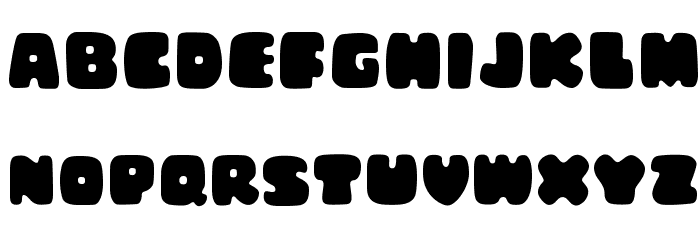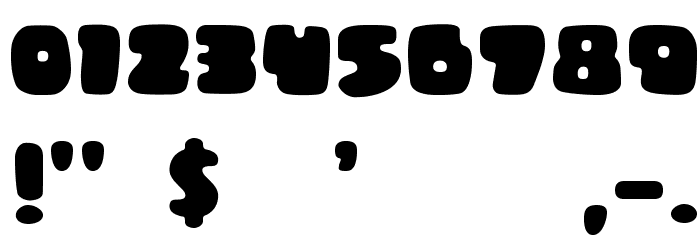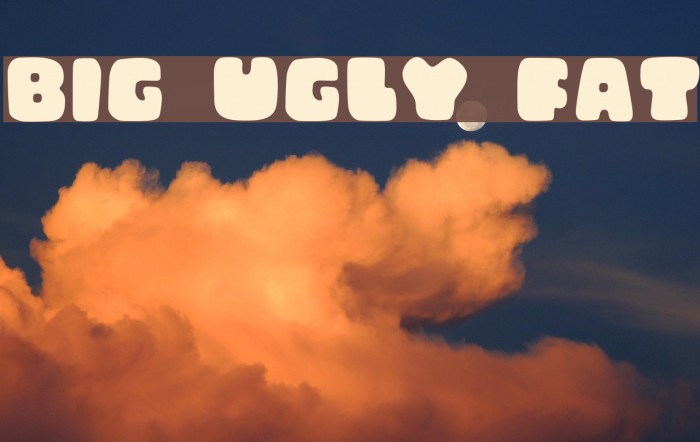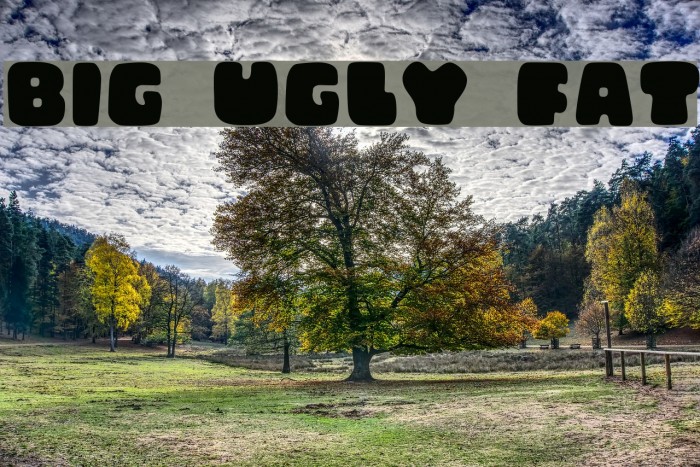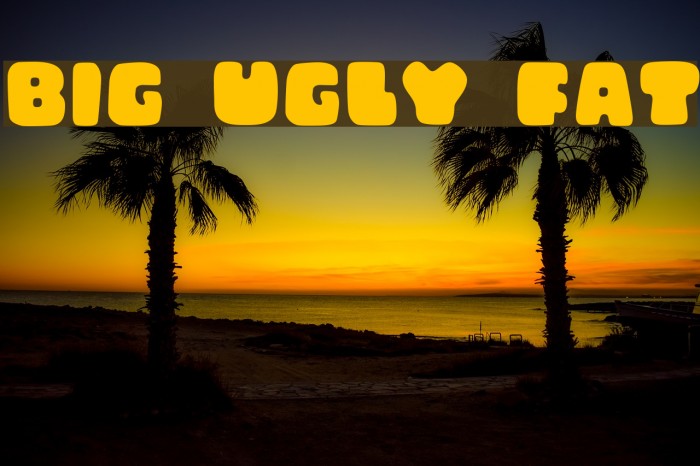
Big Ugly Fat Font
This font features a bold and playful style with thick, rounded characters that exude a sense of fun and whimsy. The letters are uniformly heavy, creating a strong visual impact that is both eye-catching and approachable. The rounded edges and uniform stroke width give it a soft, friendly appearance, making it ideal for projects that require a touch of humor or lightheartedness. The font maintains consistent proportions across all characters, ensuring readability while still delivering a unique aesthetic. Its boldness makes it suitable for headlines or titles where attention is paramount. The numbers and special characters follow the same design principles, ensuring a cohesive look throughout any text.
A bold, playful font with thick, rounded characters ideal for fun, eye-catching designs.
- Proposed Projects: Perfect for children's books, playful branding, party invitations, or any project needing a whimsical touch.
- Overall Style: Playful